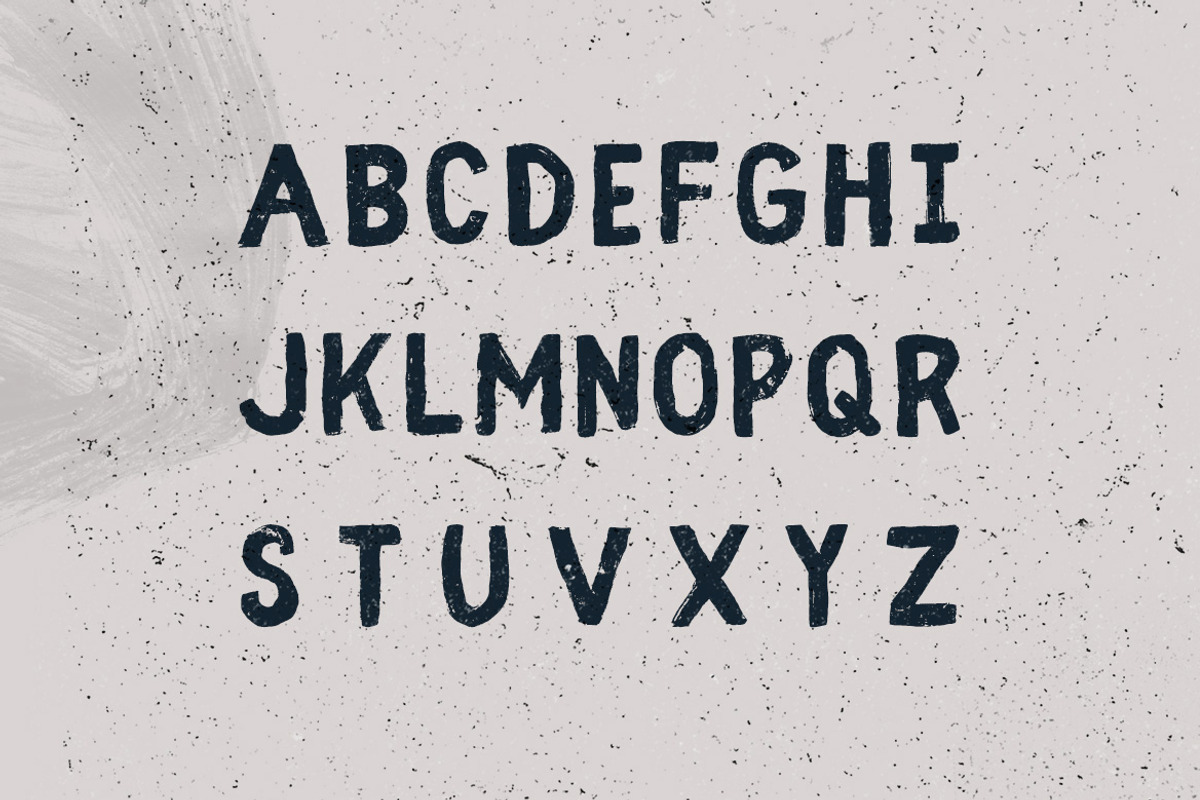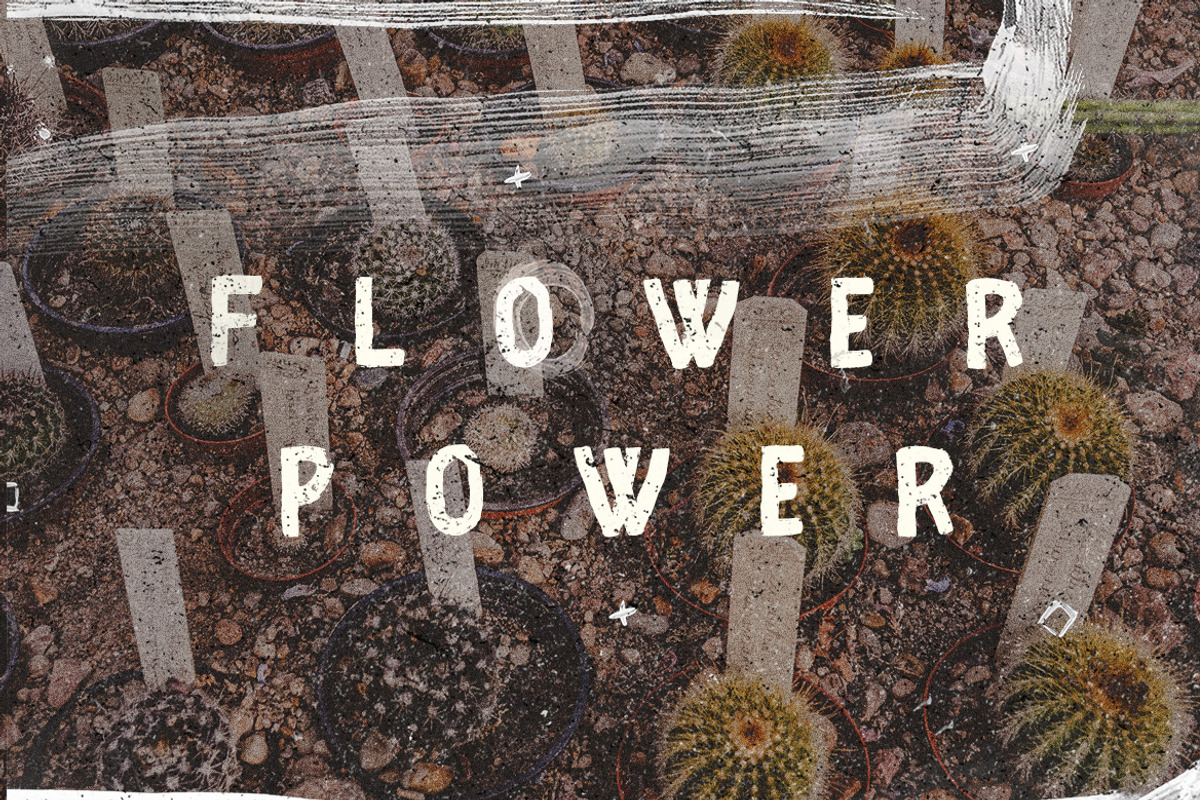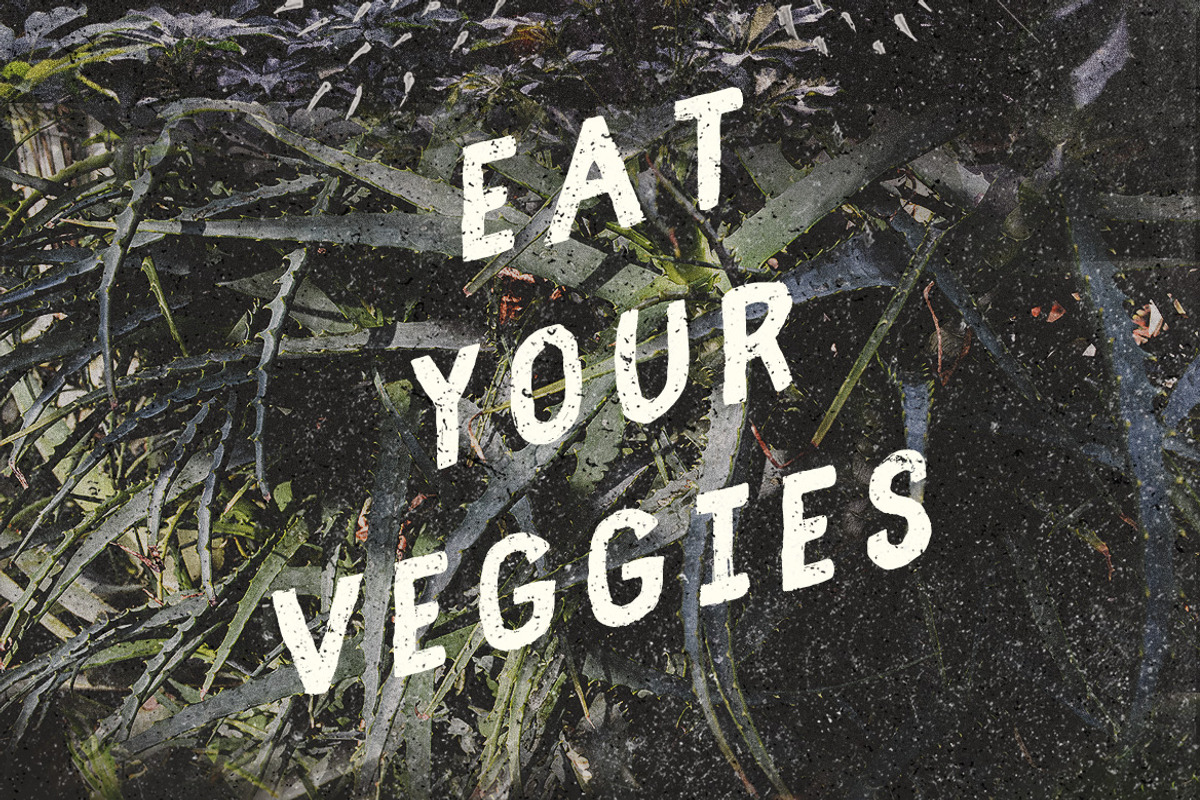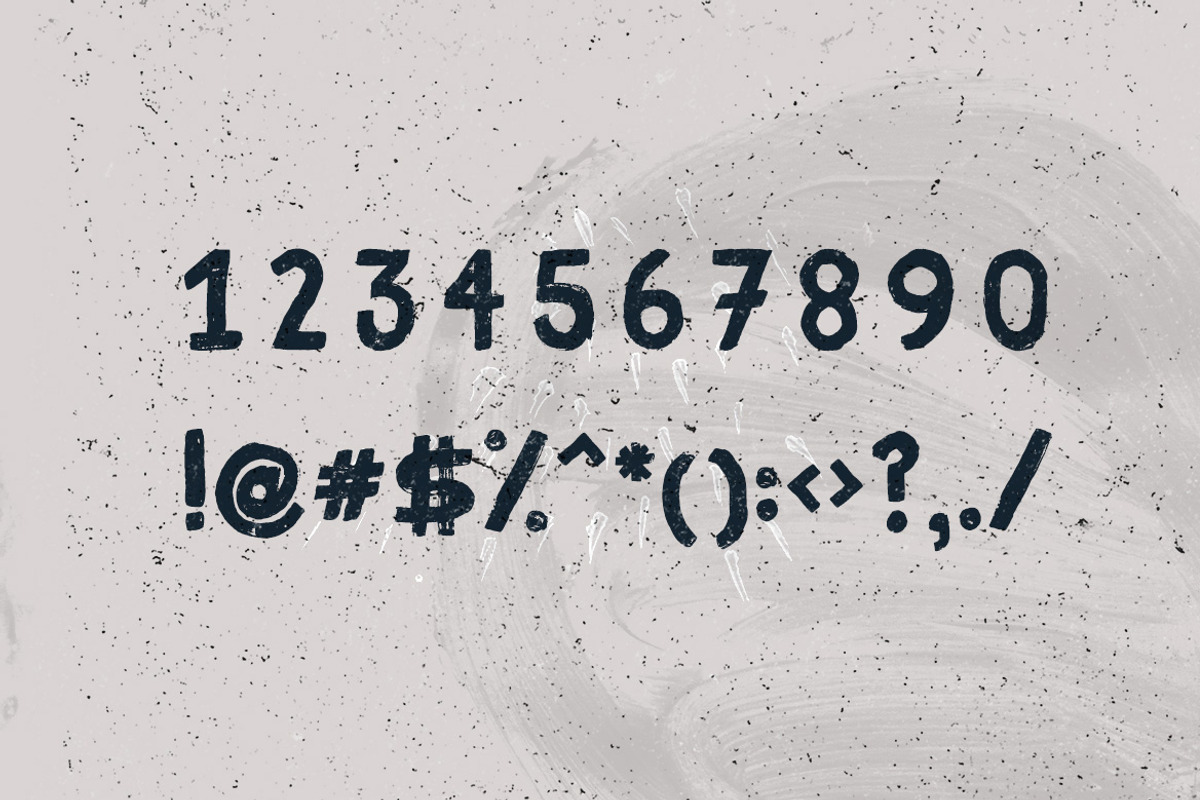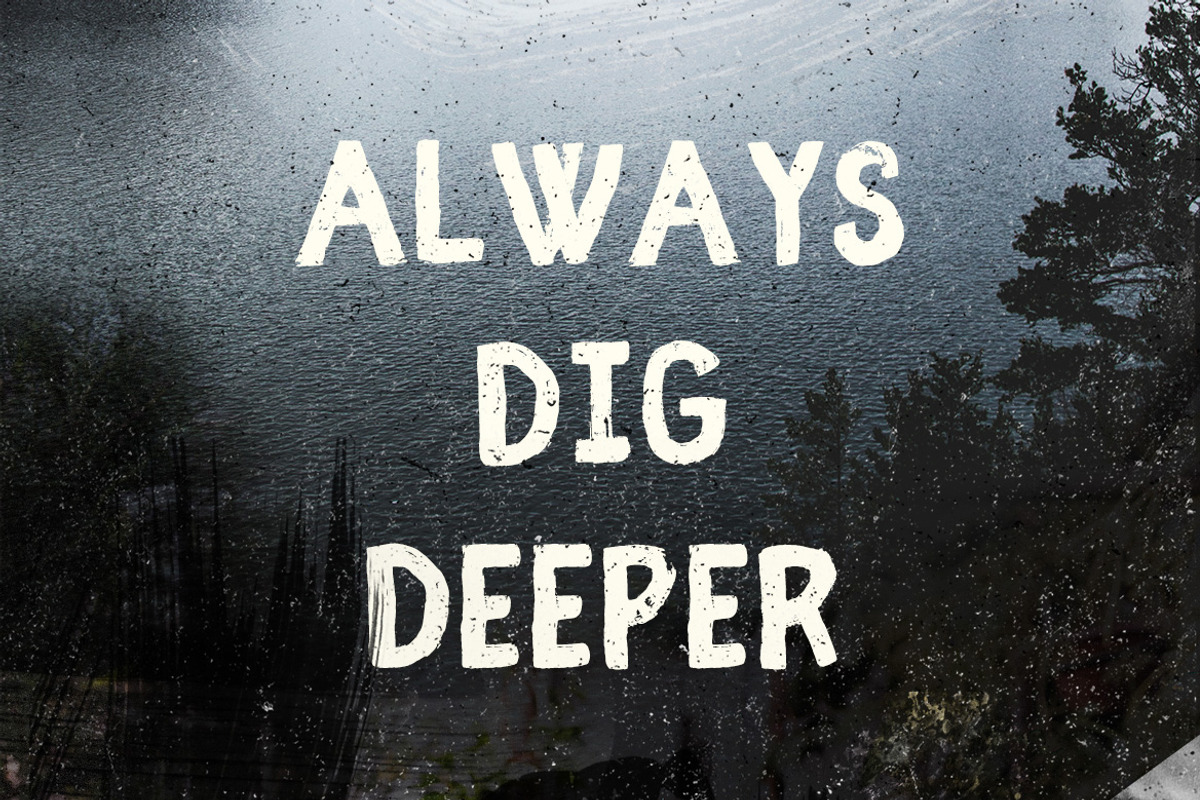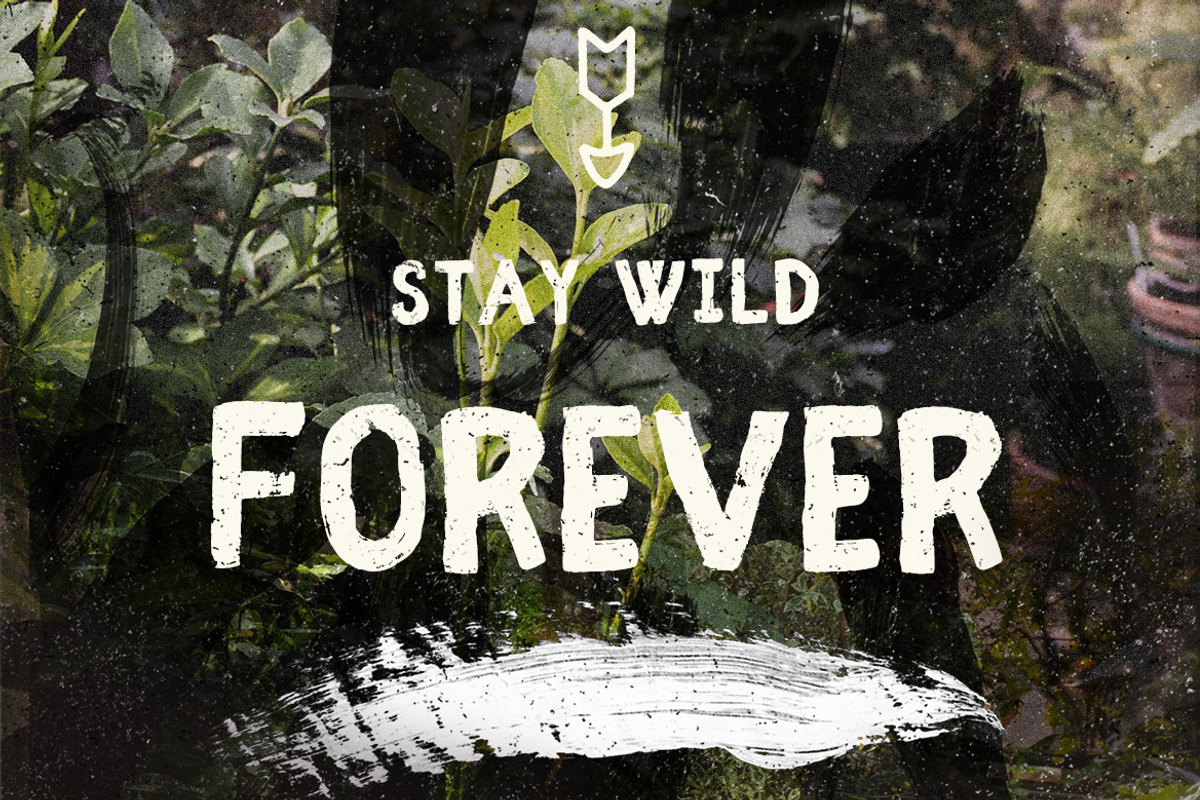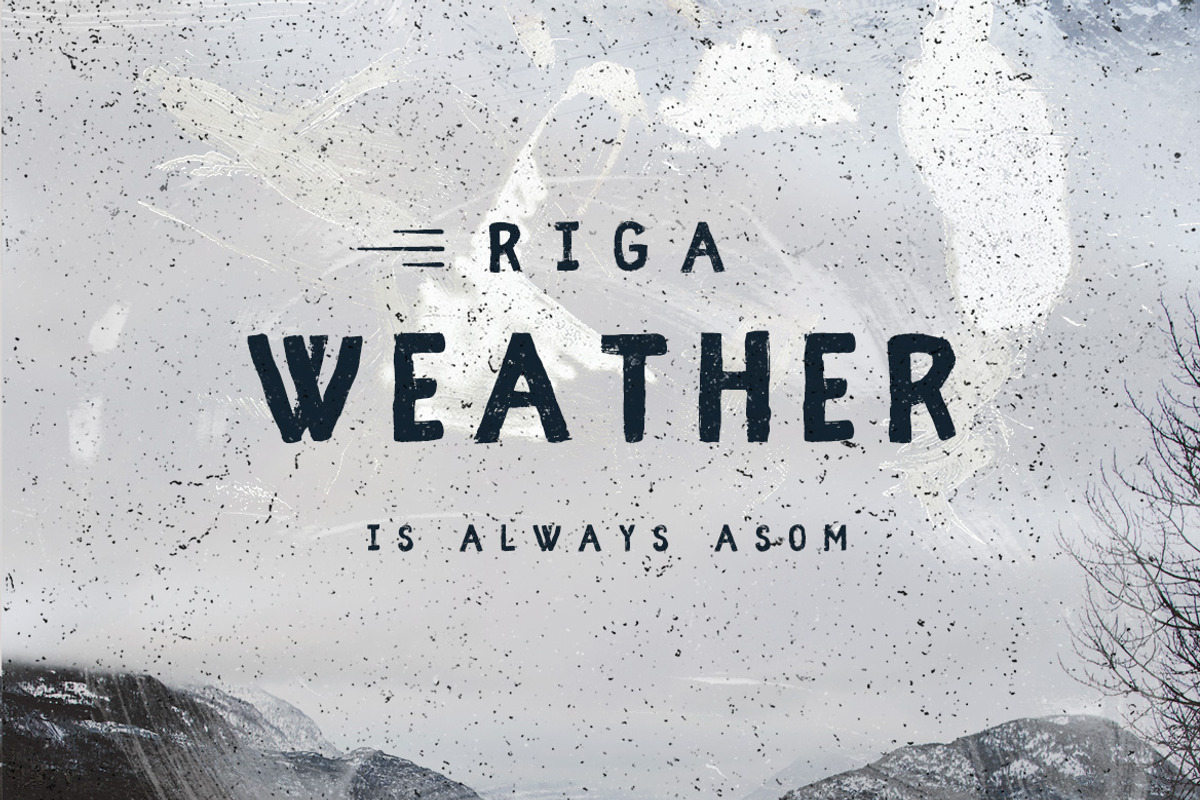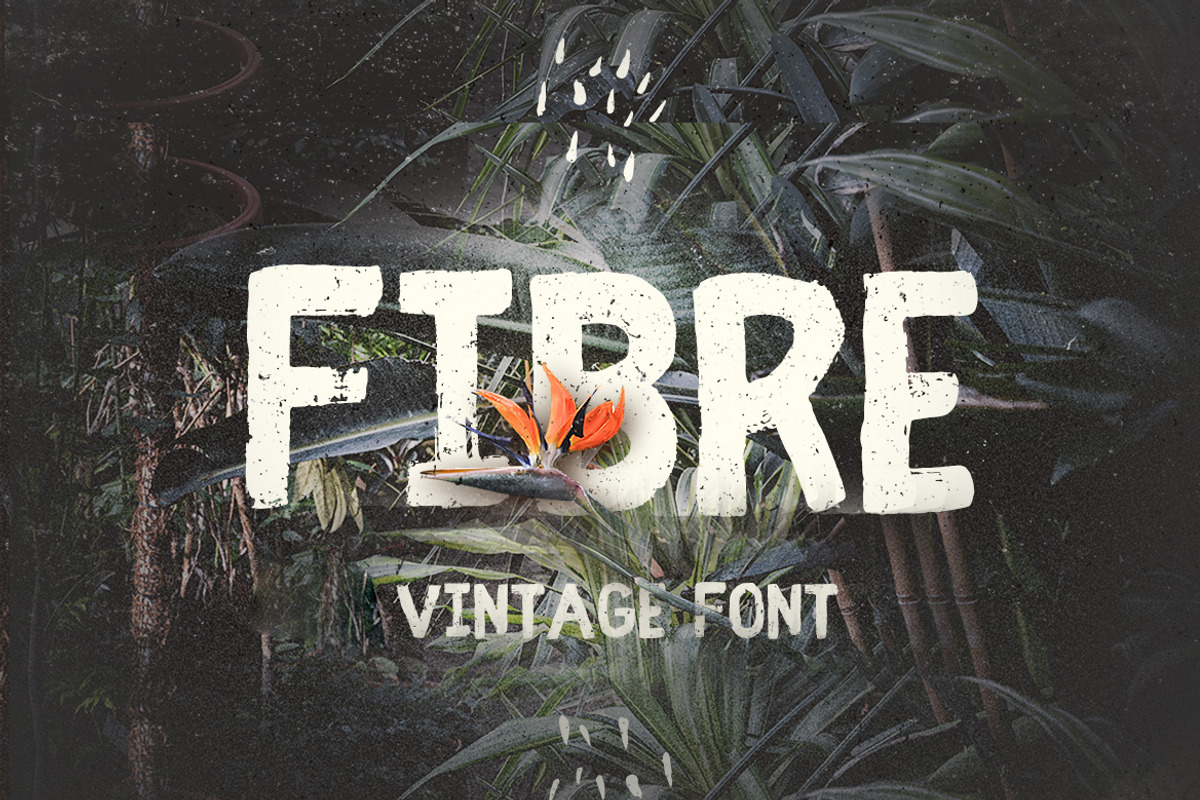
Fibre - Vintage Font
Fibre - Vintage Font by Wild Ones is a font selected for branding, posters, packaging, typography.
- Fibre is a handwritten Vintage feel font, all the basic characters are unique and not one has the same noise.
- The kerning and font metricks are designed to suit the best reading experience a all caps font can have.
Fibre - Vintage Font by Wild Ones fits naturally into Branding, posters, packaging, typography.